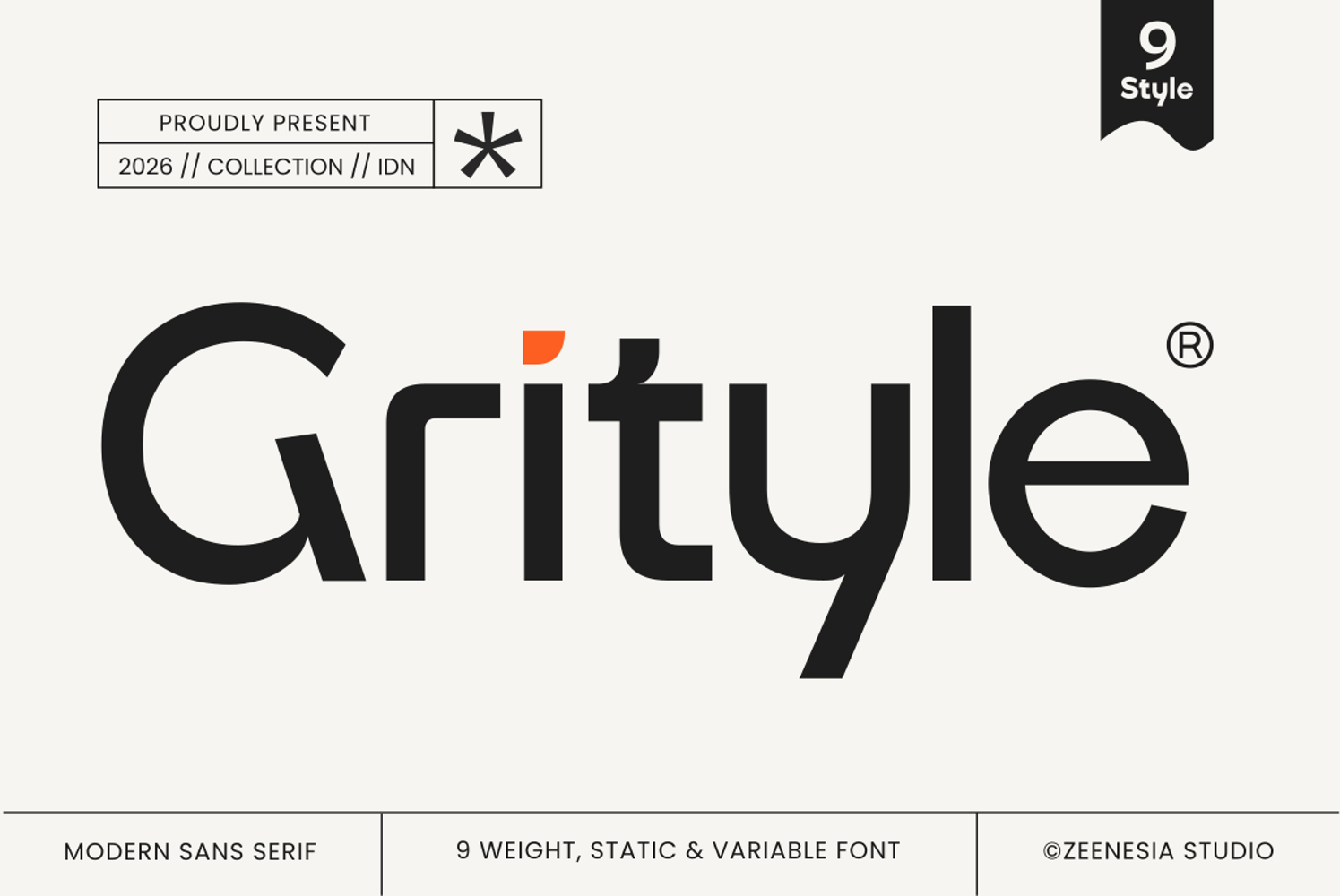
Grytile
Grityle is a modern sans serif typeface designed with precision, clarity, and contemporary elegance in mind. Built to deliver a clean yet distinctive visual presence, Grityle balances geometric structure with subtle character details, making it highly versatile across a wide range of design applications.
Featuring 9 weights in both static and variable formats, Grityle offers exceptional flexibility for branding, editorial layouts, digital interfaces, packaging, and corporate identity systems. Its well-crafted proportions, smooth curves, and confident letterforms ensure strong readability while maintaining a refined and professional tone.
Grityle is perfect for designers seeking a typeface that feels modern, bold, and adaptable — a reliable foundation for both minimalist compositions and expressive visual identities.
A timeless sans serif for forward-thinking design.